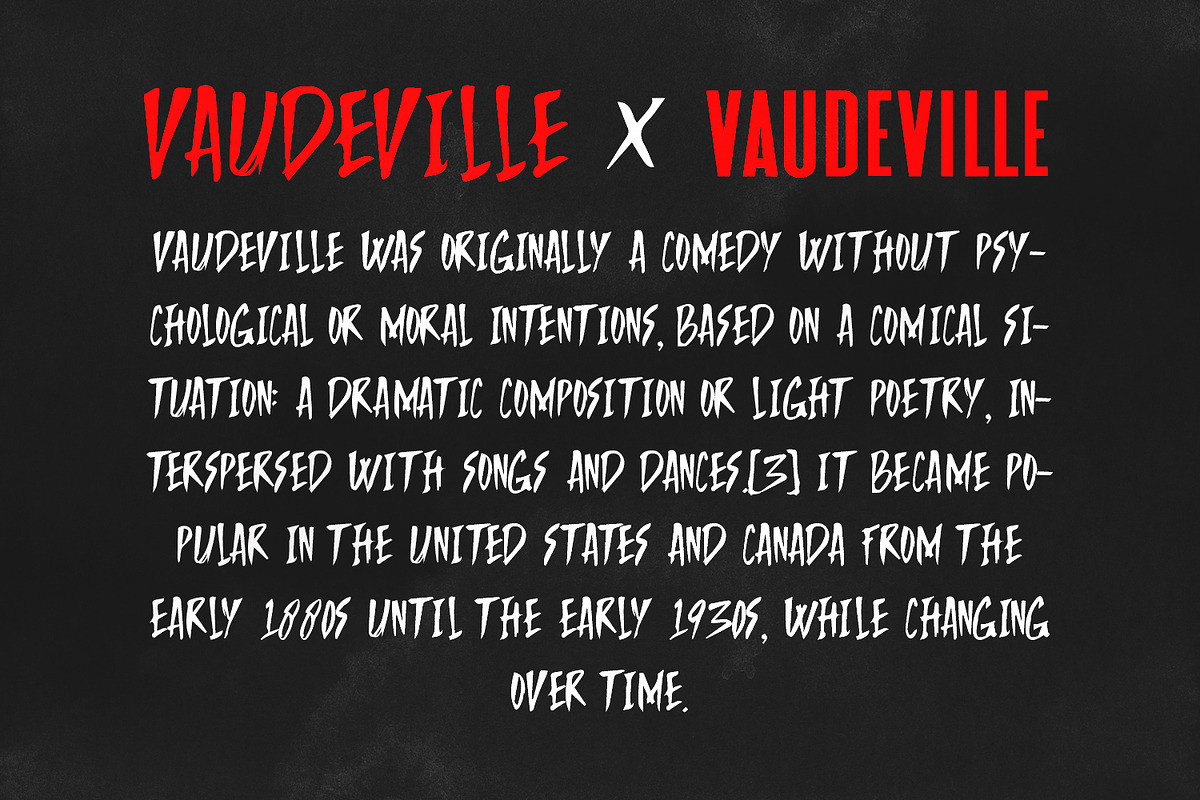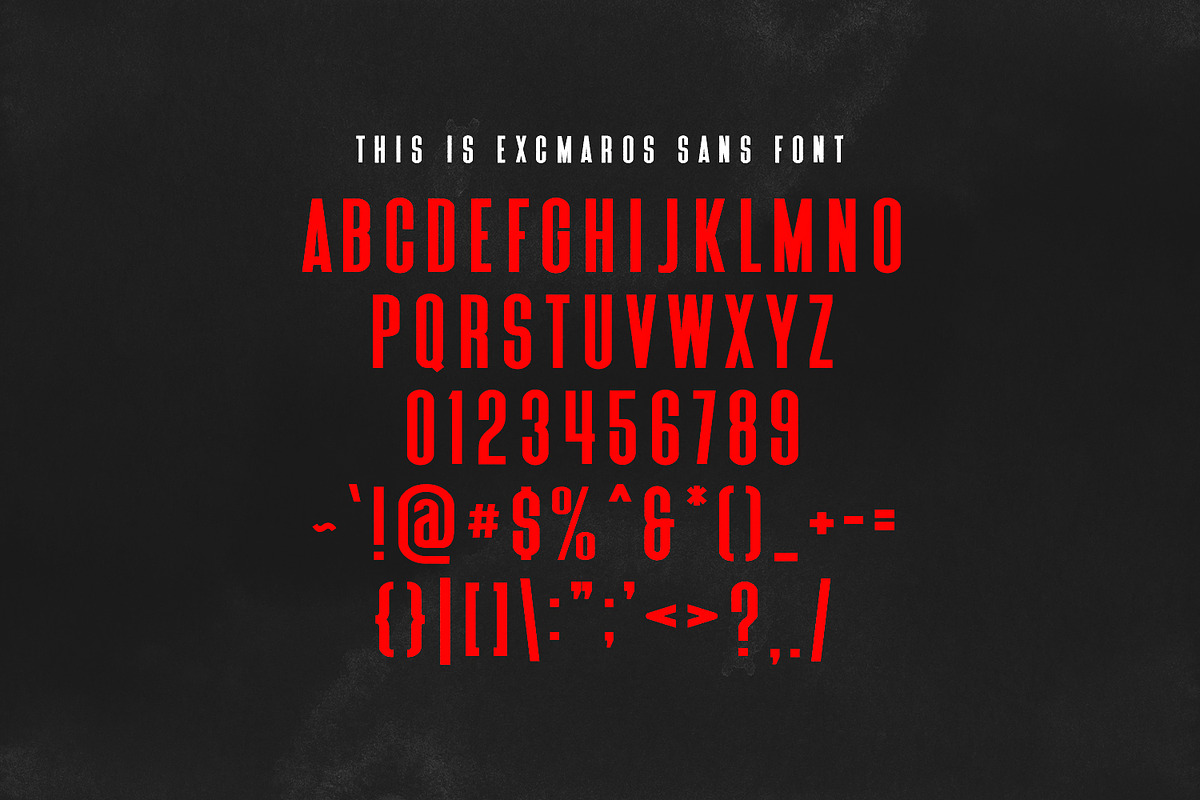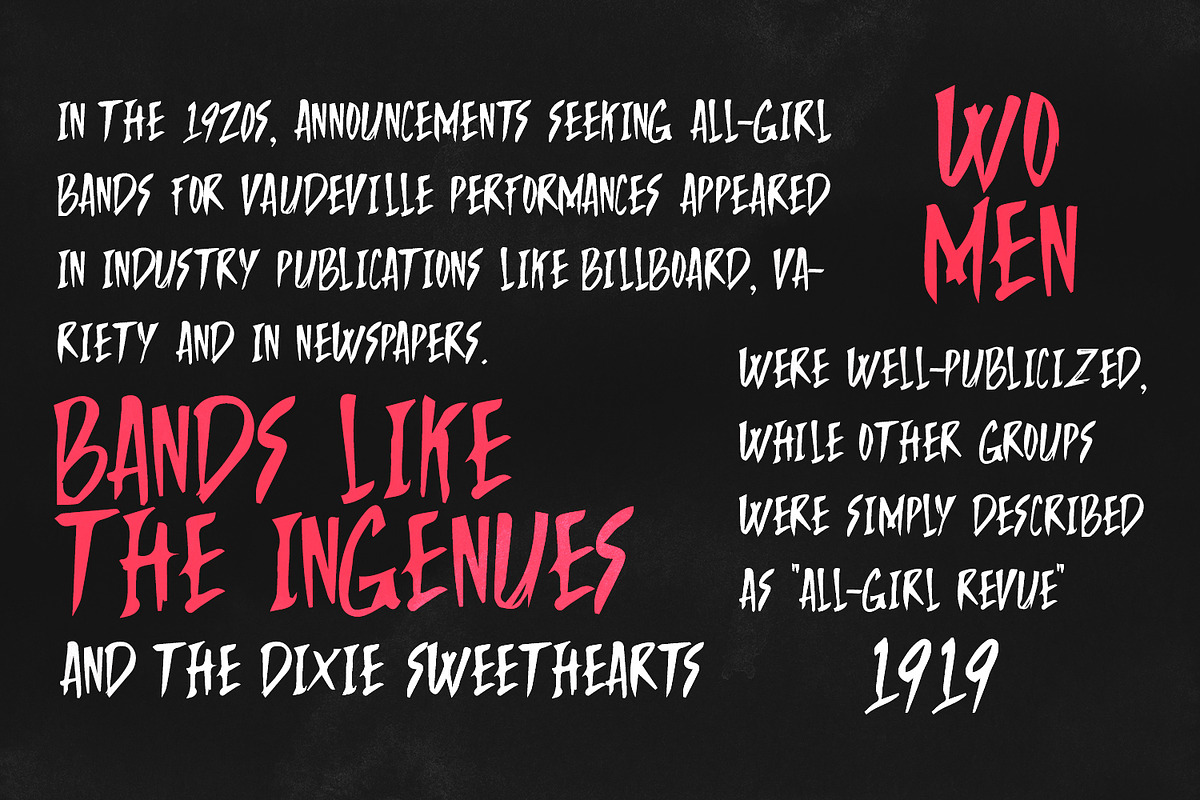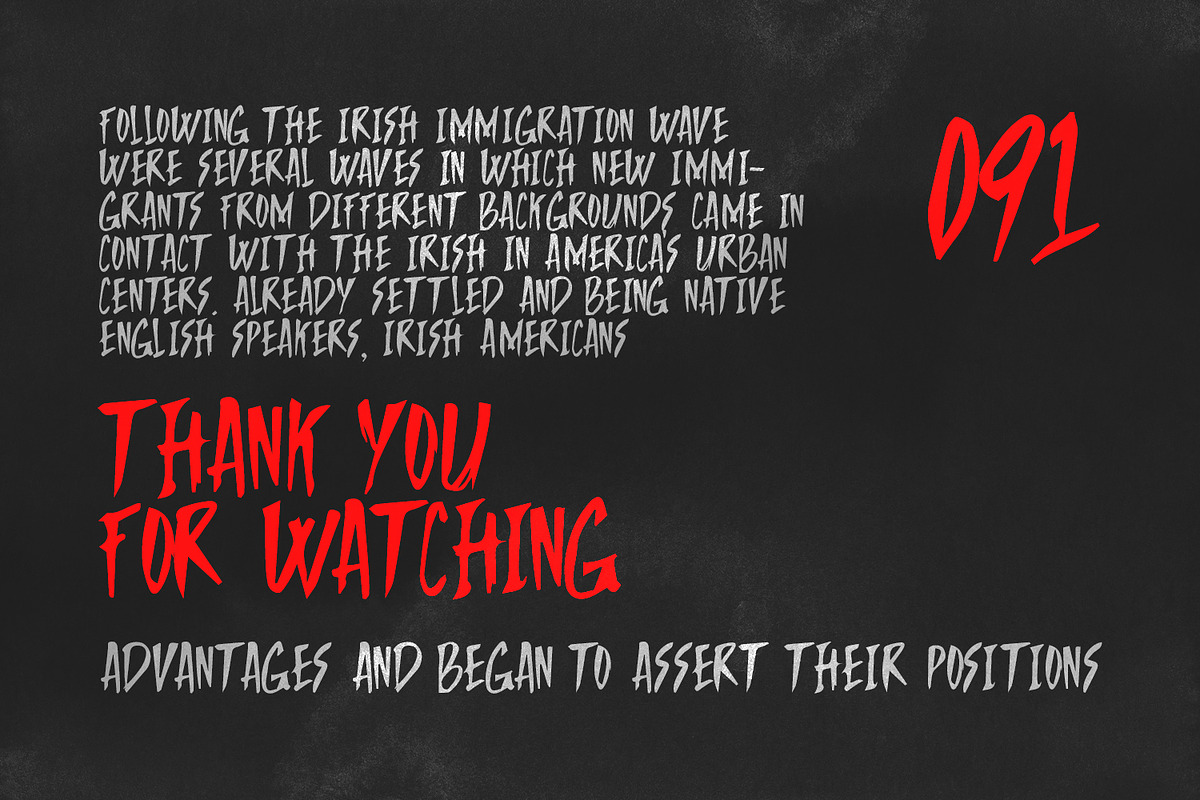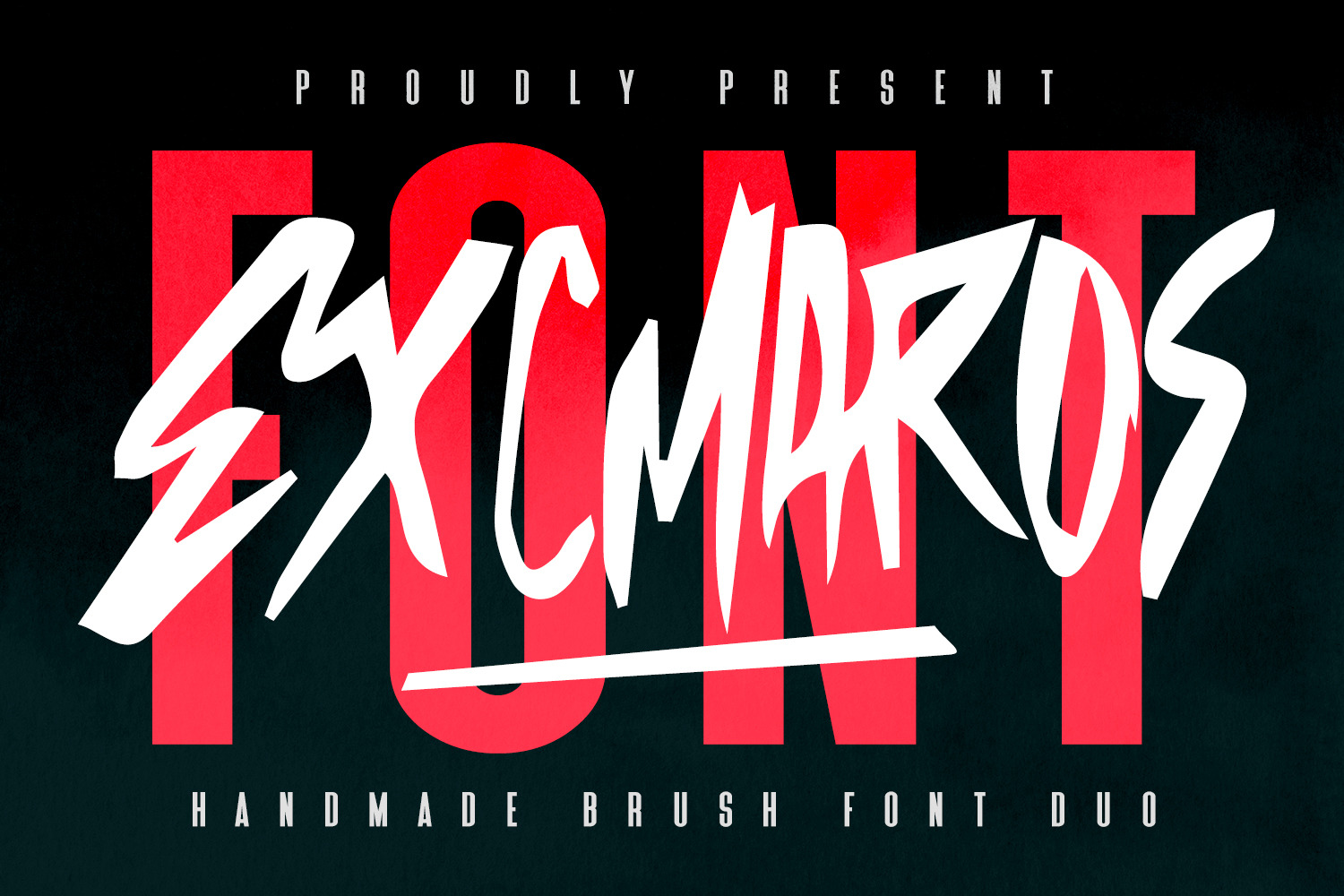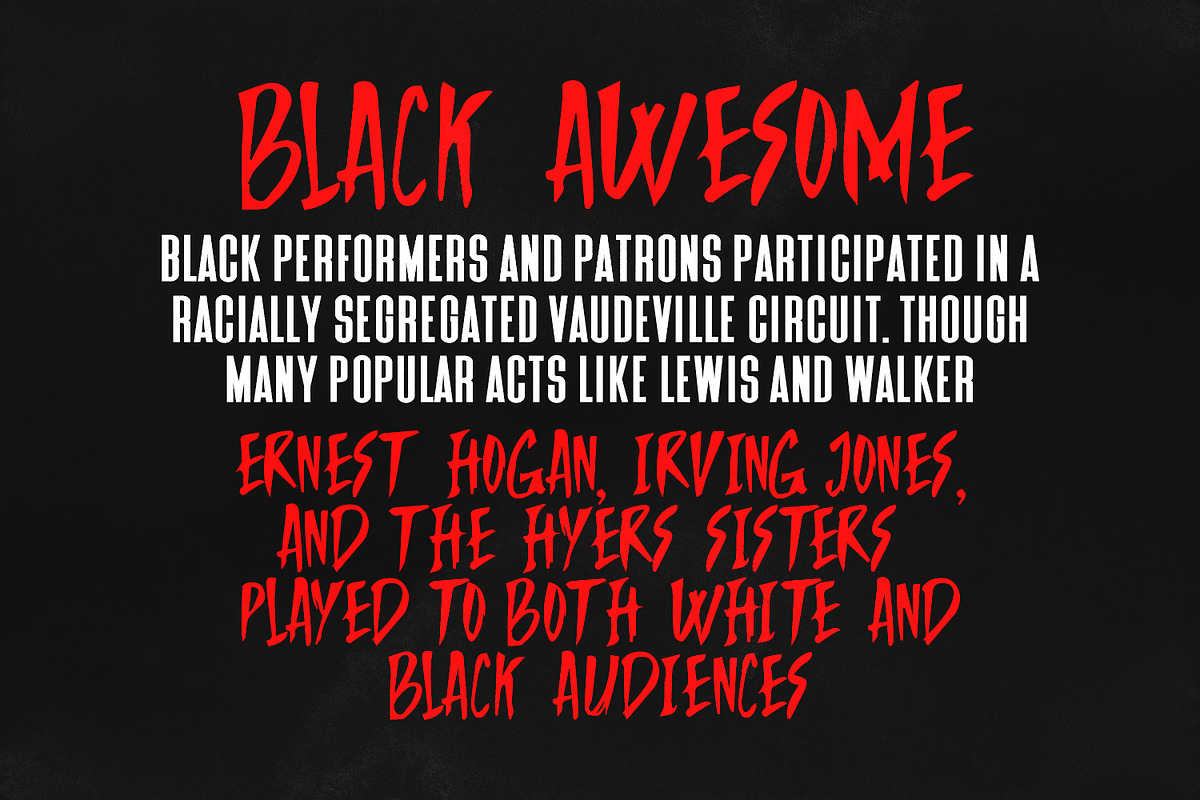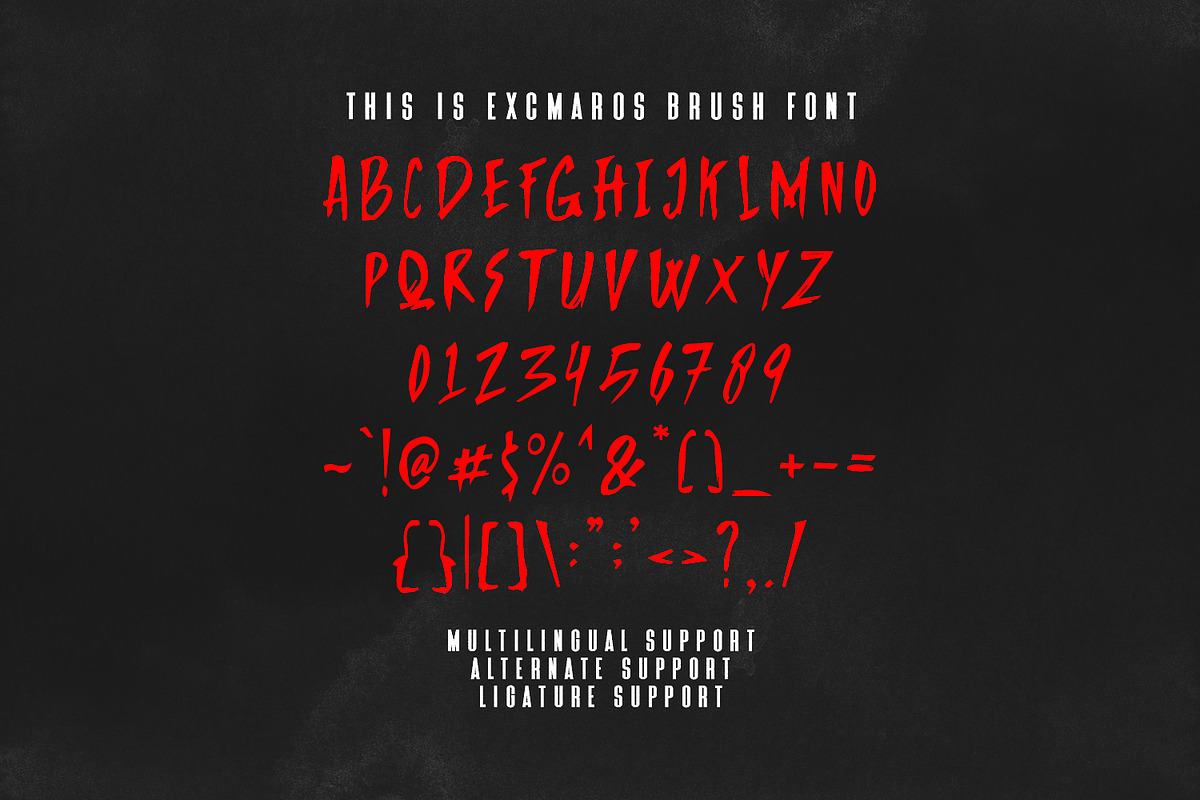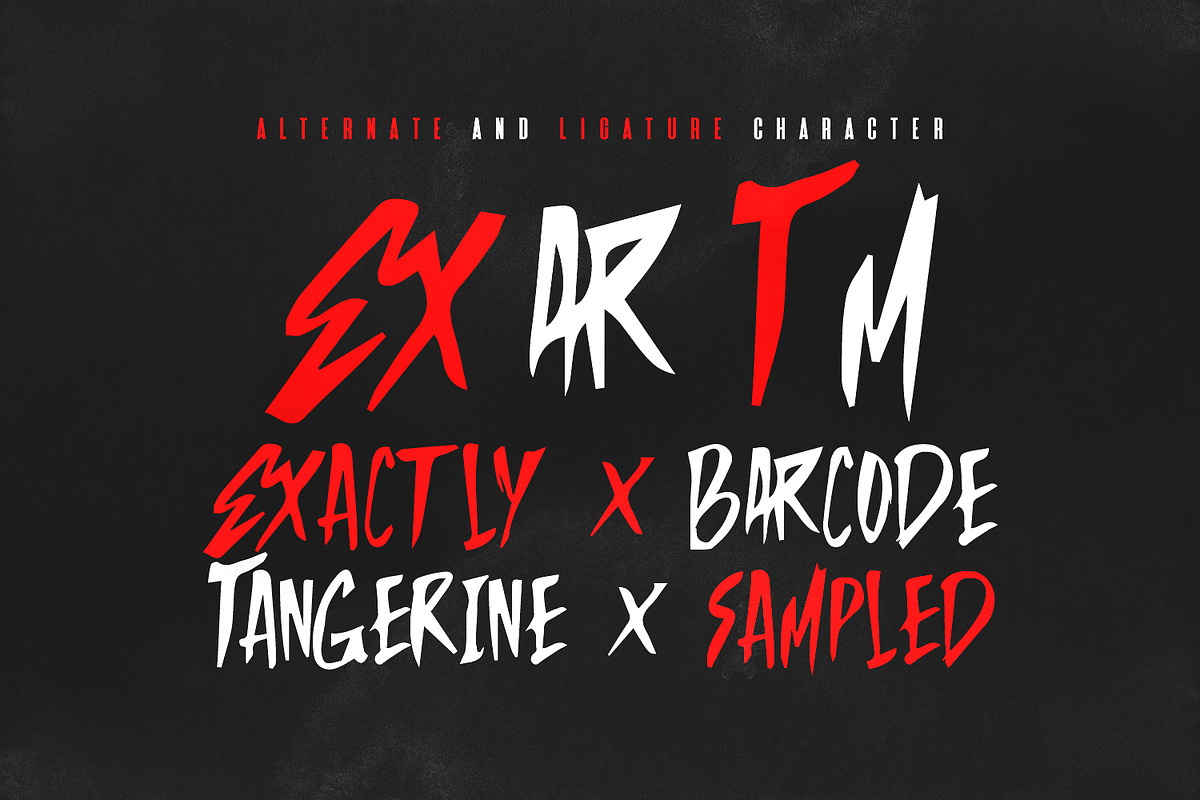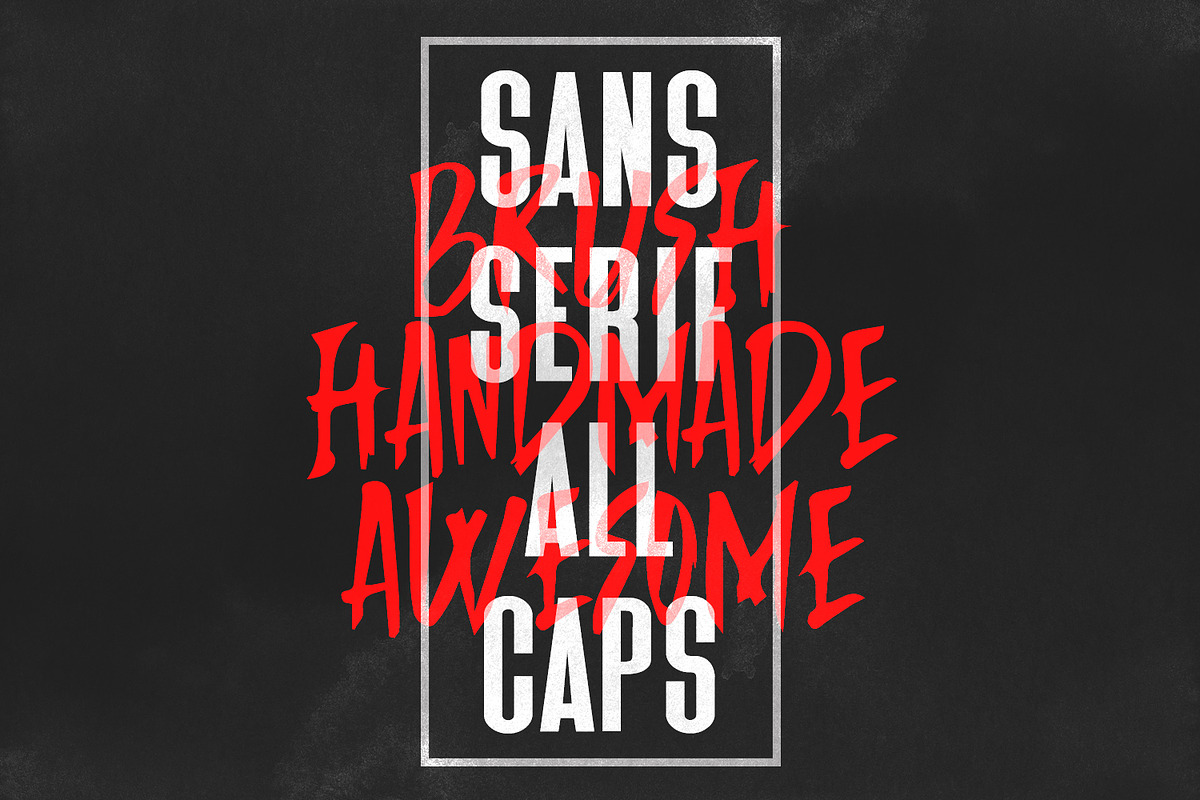
Excmaros Handmade Brush Font Duo
Give your designs an authentic brush handcrafted feel. “Excmaros Handmade Brush Font Duo” is perfectly suited to signature, stationery, logo, typography quotes, website header, branding and more.